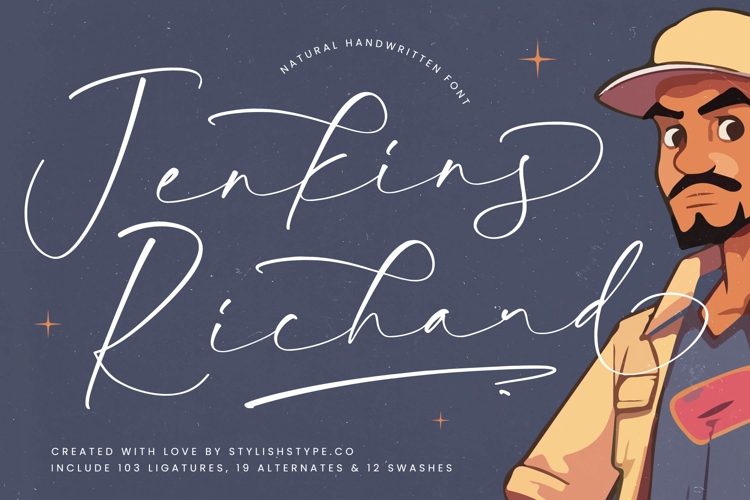
Jenkins Richard - Natural Handwritten Font
Jenkins Richard is a natural handwritten font that combines elegance with a casual handwritten charm. Its long flowing strokes, delicate ligatures, and smooth alternates make it a versatile font for both creative and professional projects. With 103 ligatures, 19 alternates, and 12 swashes, Jenkins Richard offers flexibility for crafting expressive, stylish, and unique lettering compositions.
This font is excellent for branding. Perfect for logos, boutique shops, artisan goods, fashion labels, and lifestyle products, Jenkins Richard communicates originality and authenticity. Its handwritten essence ensures that branding projects feel stylish, approachable, and memorable, making it an ideal choice for modern businesses.
In editorial and publishing, Jenkins Richard adds refinement and personality. Magazines, book covers, invitations, and creative zines benefit from its smooth rhythm and artistic appeal. It creates editorial layouts that balance elegance with readability, ensuring designs stand out.
For web typography, this handwritten font adapts seamlessly across blogs, websites, portfolios, and social media platforms. Its handwritten strokes ensure that digital media projects feel authentic, creative, and stylish, helping brands and creators build a connection with their audiences.
Jenkins Richard also performs strongly in advertising and marketing. From posters, campaigns, product packaging, and promotional designs, it captures attention with its expressive handwritten flow. It ensures that advertising communicates creativity, elegance, and authenticity, appealing to contemporary audiences.